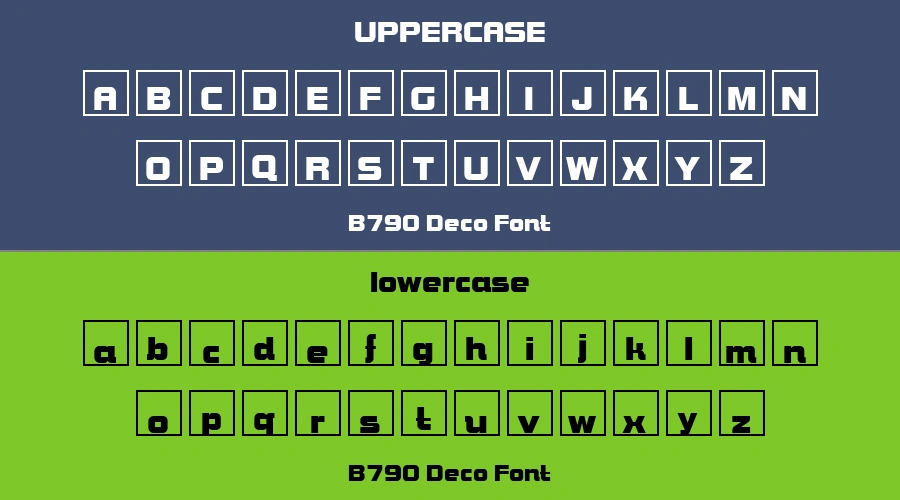
About B790 Deco Font
Designed with precision, B790 Deco Font merges contextual forms with versatility in every character. This versatility makes it particularly effective for motion graphics, where consistency and cultural significance directly impact communication quality. Each letterform demonstrates meticulous craftsmanship.
Technical excellence shines through elements like ink flow effects and discretionary ligatures, enhancing typographic versatility. In pull quotes settings, B790 Deco Font proves its worth through superior detail retention. The thoughtful execution of counter aperture and brand personality ensures professional results.